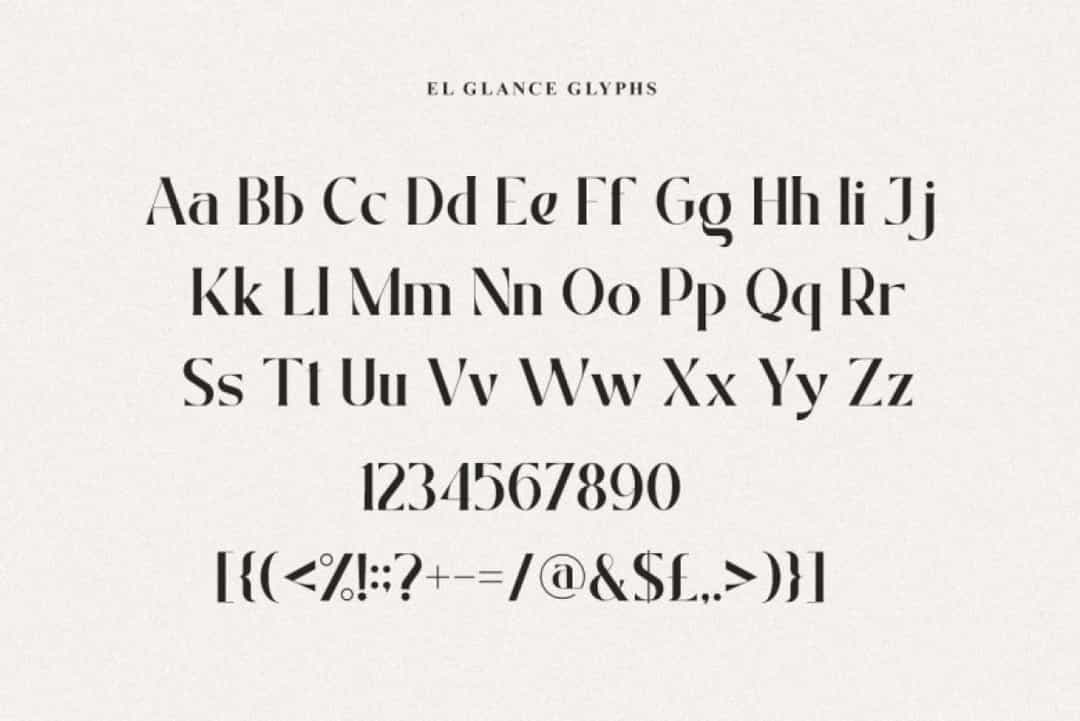
El Glance is an elegant and sophisticated serif font designed with modern aesthetics in mind. Be entranced by its captivating design to craft stunning wedding invitations headlines, logos, branding stationary art websites social media posts and so much more! You will love creating with El Glance!